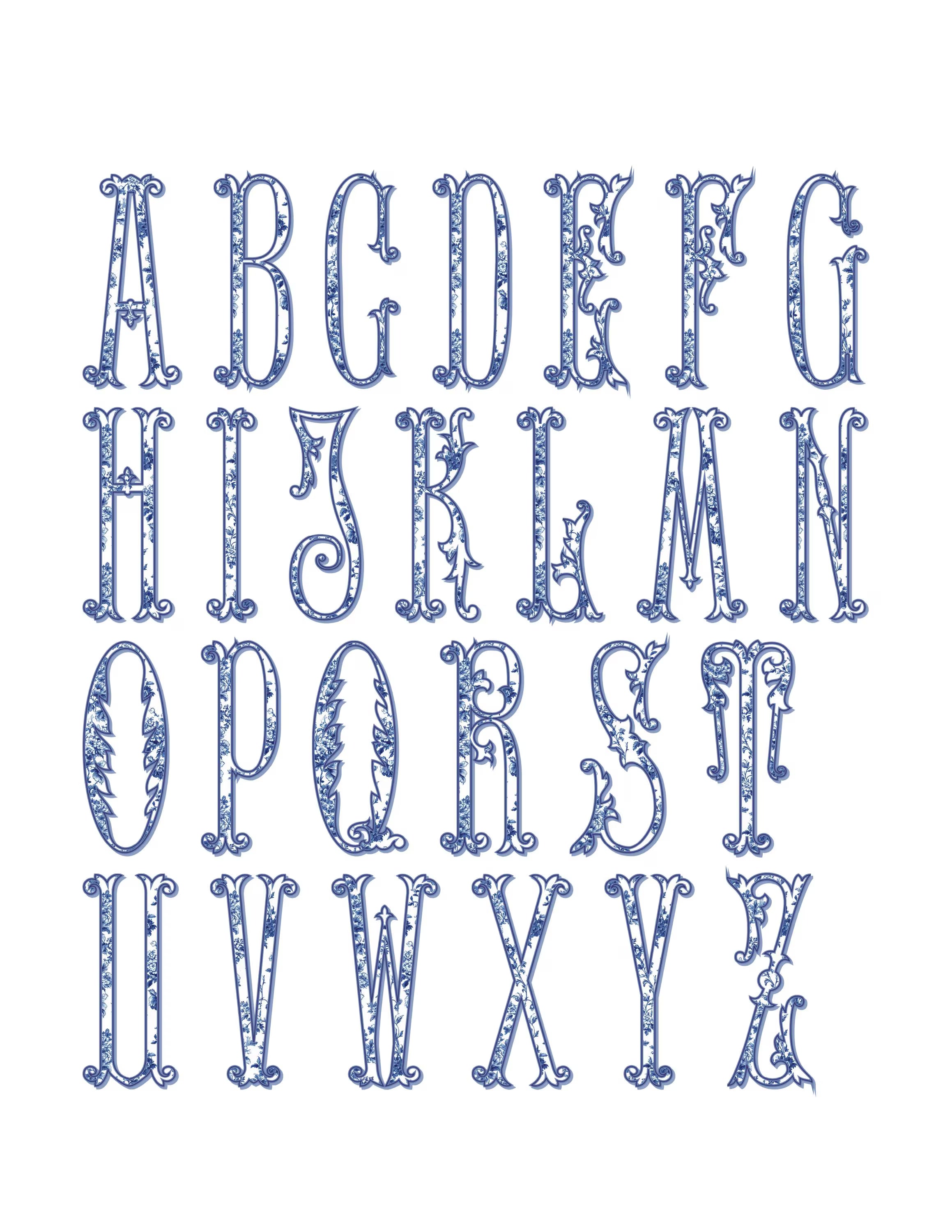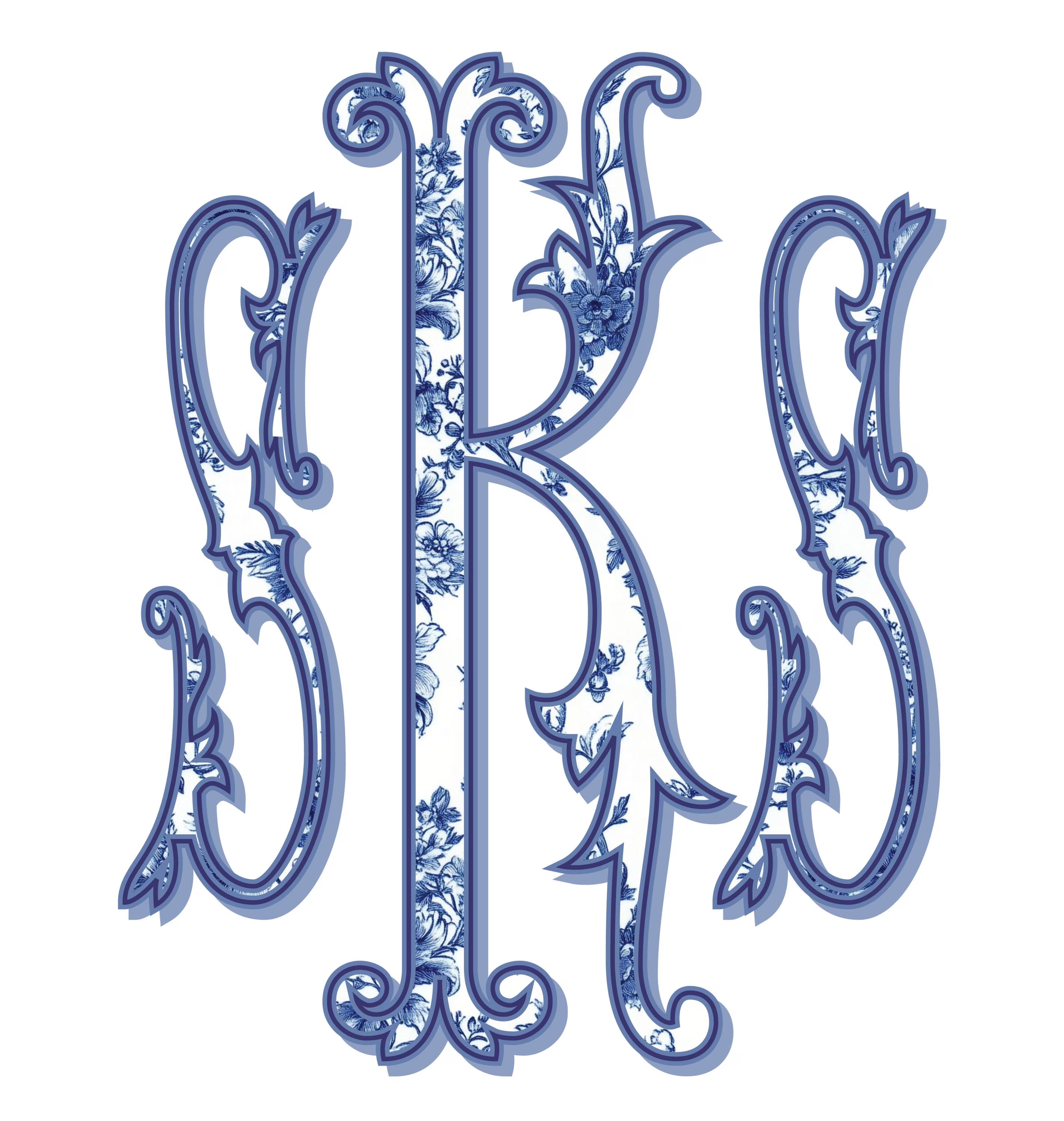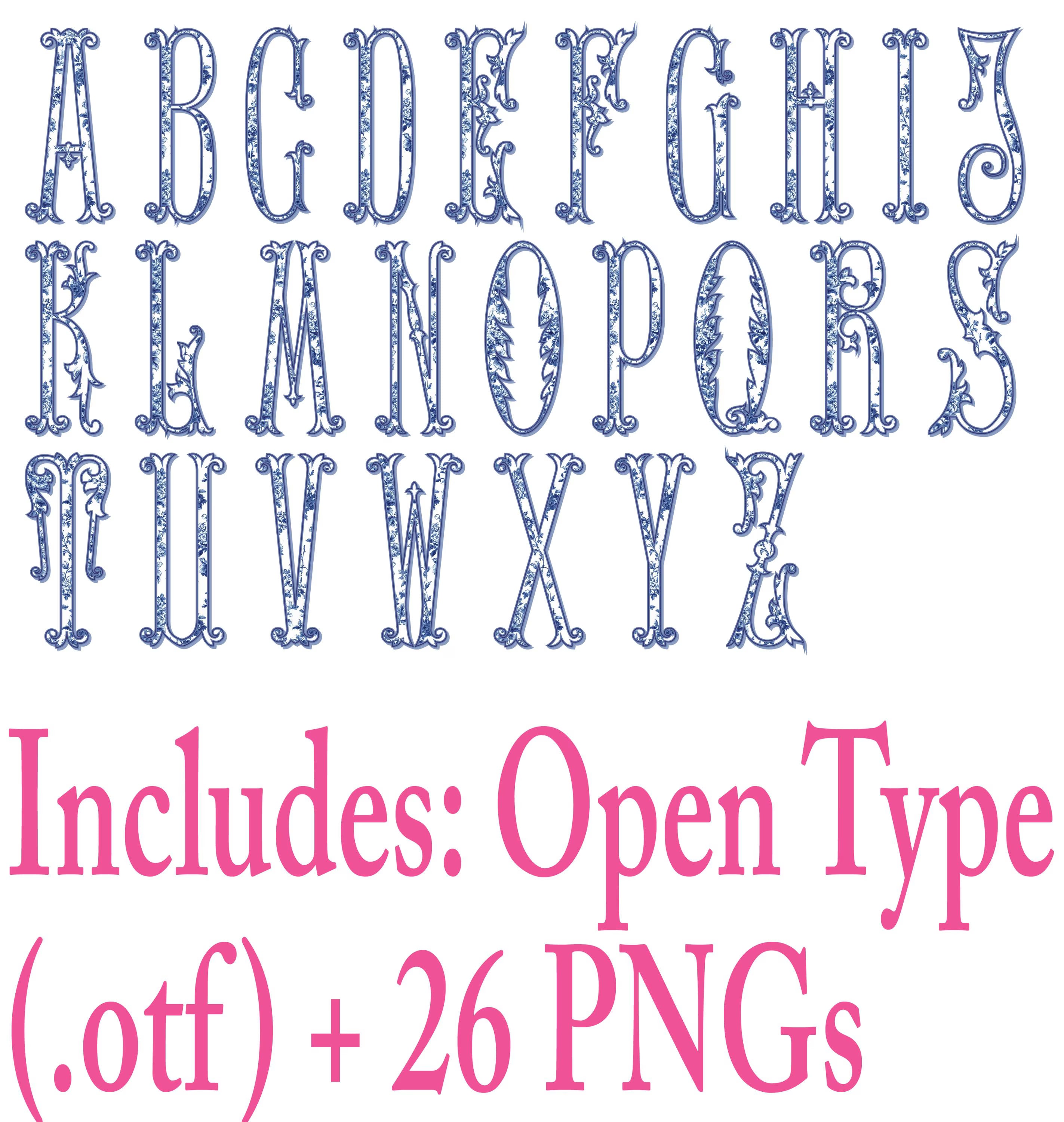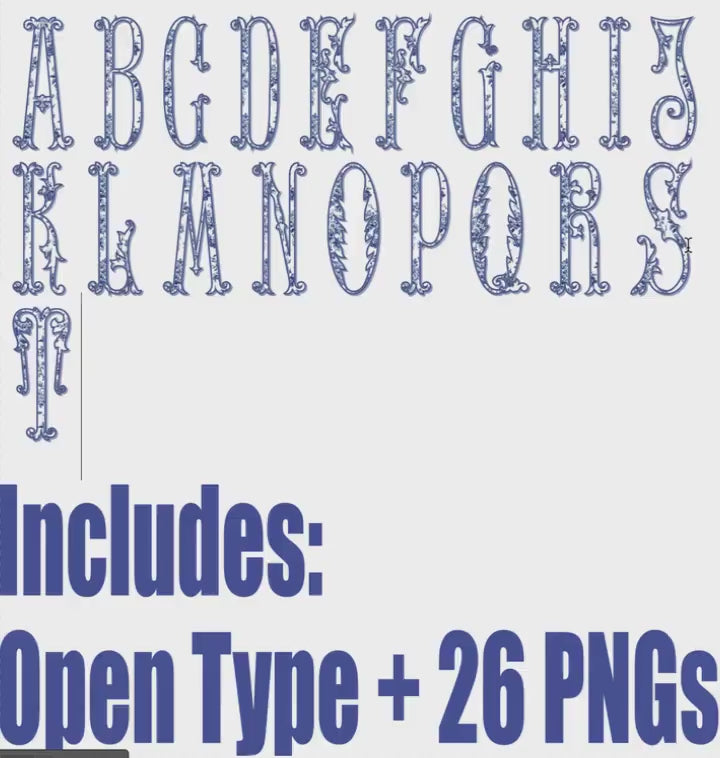
Fancy Chinoiserie Monogram Font: .otf (open type font) + all 26 letters in png format
This stunning blue chinoiserie alphabet is perfect for plates, mugs, wreath sashes, wedding decor, and any other dtg/dtf, sublimation, or printable projects you desire.